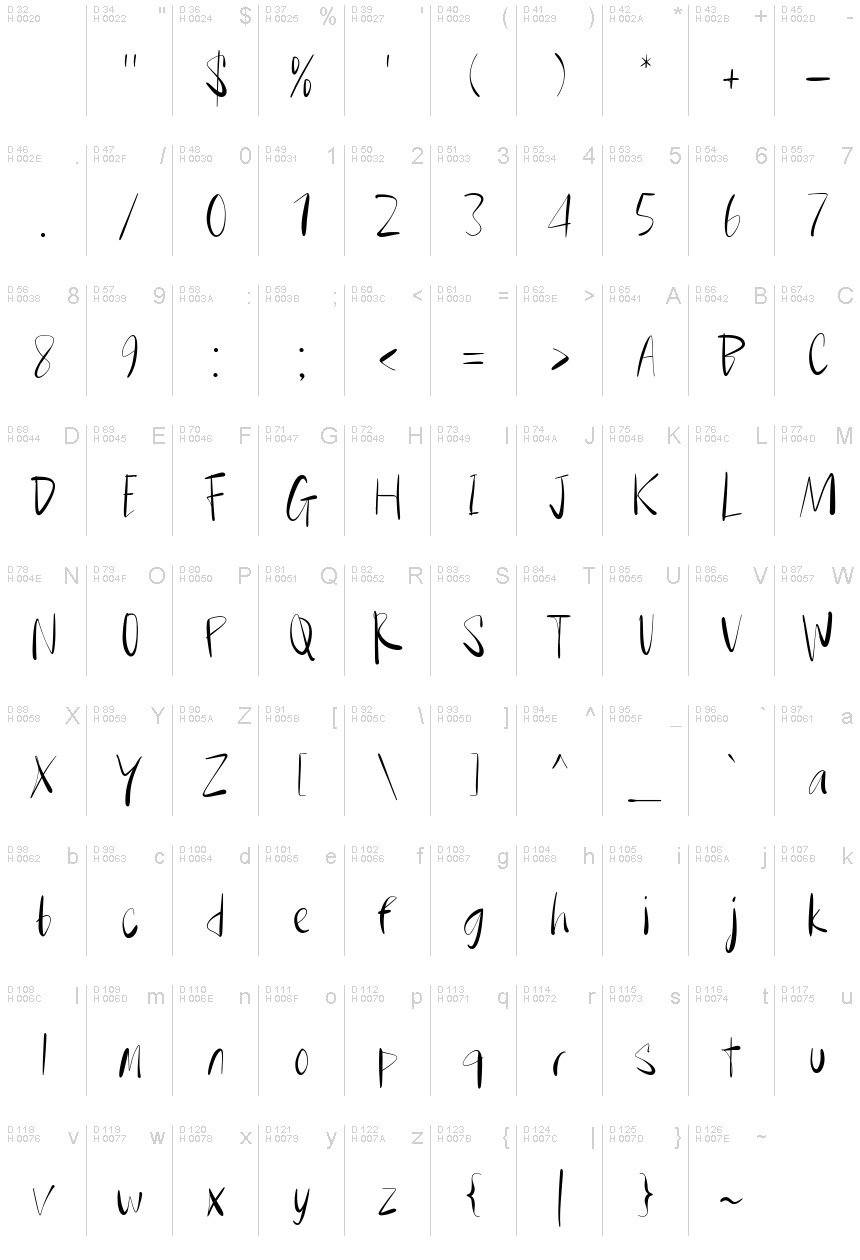
Fast York Look- Demo
Fast York Look, a captivating handwritten font crafted by Tera Asset Garage, exudes a vibrant, lively aesthetic. Blending organic strokes with a touch of playfulness, this font effortlessly conveys a sense of energy and movement. The fluid, free-flowing letterforms create a warm, approachable atmosphere, inviting the viewer to engage with the content. The versatile nature of Fast York Look allows it to seamlessly transition between bold headlines and delicate body text, making it a versatile choice for a wide range of design projects.
Brands seeking to cultivate a personalized, handcrafted vibe will find Fast York Look to be a compelling option. Its distinctive character lends itself well to branding, packaging, and editorial design, where the font's expressive qualities can help to establish a strong, memorable visual identity. Likewise, Fast York Look's casual, yet refined essence makes it an excellent choice for wedding invitations, greeting cards, and other applications that require a touch of personal flair.